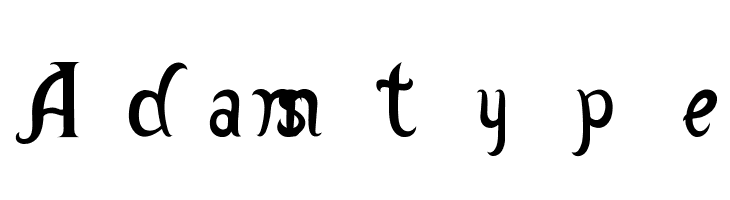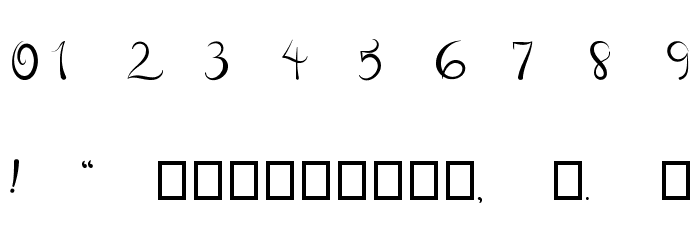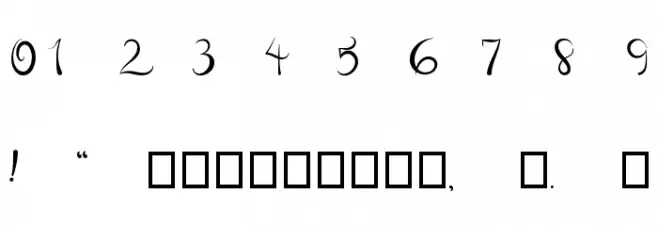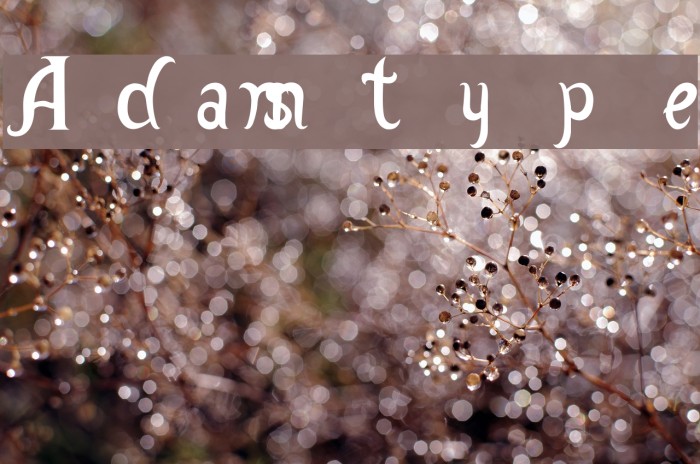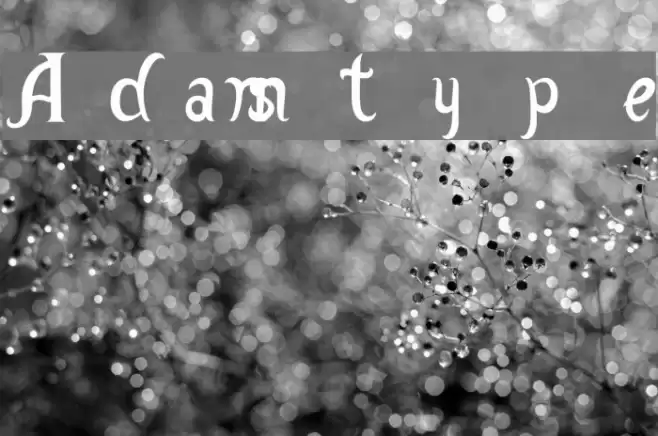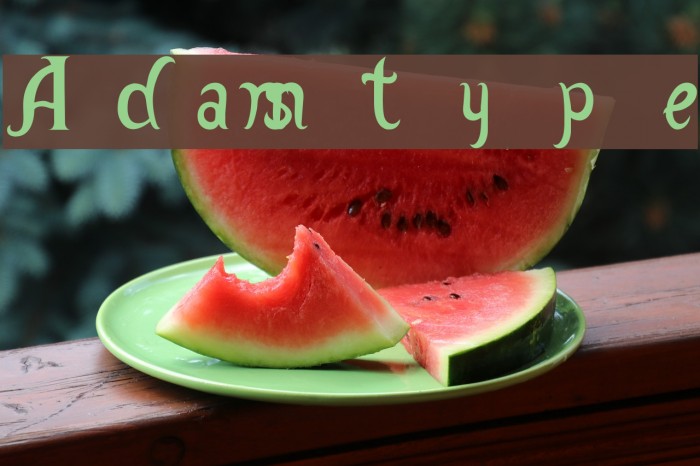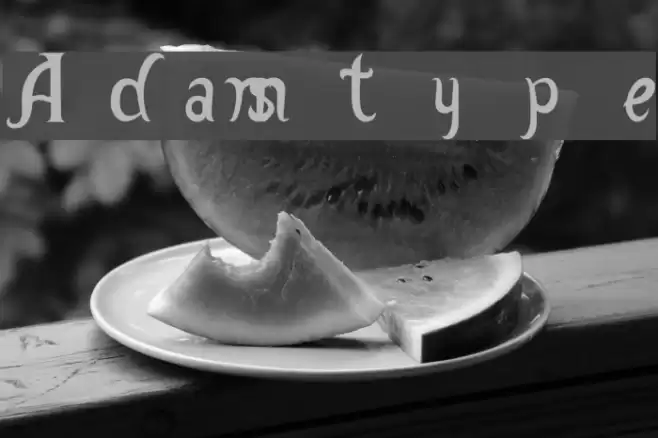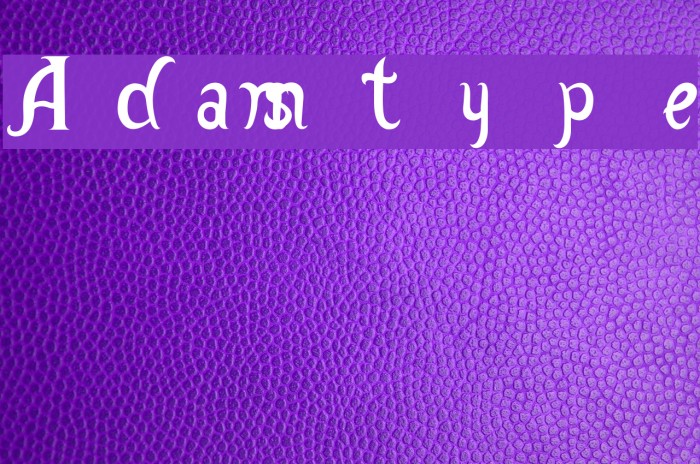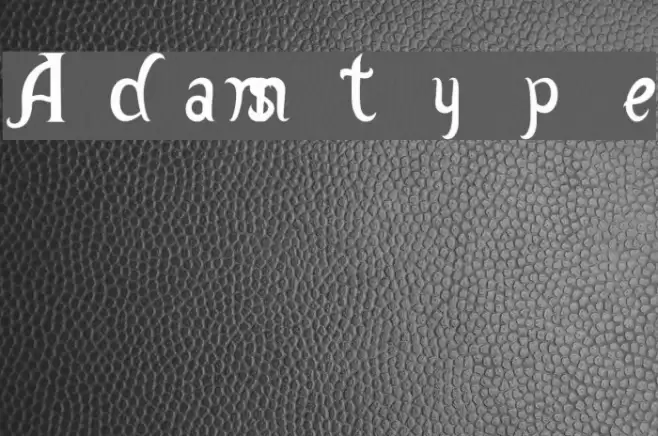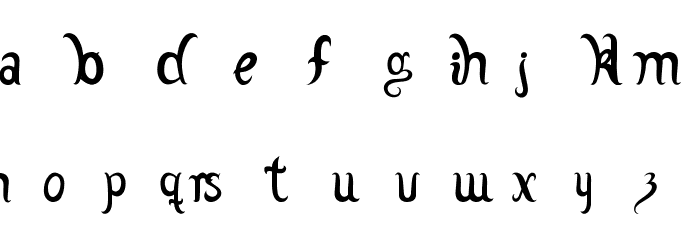
Adamstype Font
Adamstype Description
This font features a unique blend of classic and decorative elements, with a distinctively ornate style. The uppercase letters exhibit a bold presence with intricate curves and flourishes, giving them a dramatic and artistic flair. The lowercase letters maintain a consistent style, with some characters featuring elegant loops and swashes that add to the overall decorative appeal. The numerals are designed with a similar attention to detail, incorporating subtle curves and unique shapes that align with the font's artistic theme. Special characters like the exclamation mark and ampersand are crafted with the same ornamental touch, ensuring a cohesive look across all characters.
| Use Case | Logos, Invitations, Posters |
| Proposed Projects | Ideal for projects that require a touch of elegance and artistry, such as wedding invitations, luxury branding, or decorative posters. |